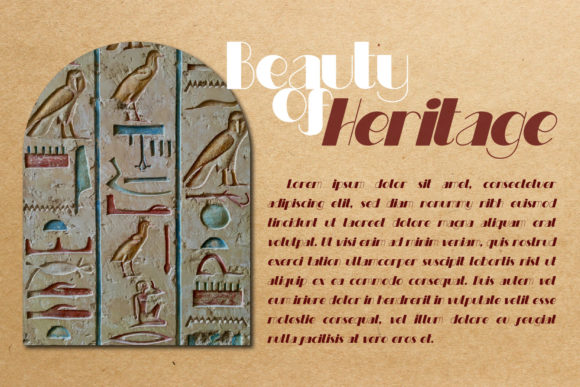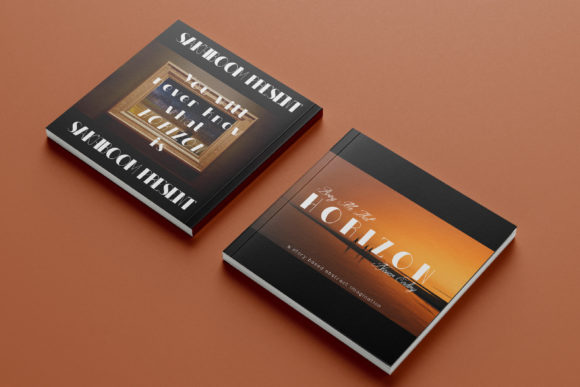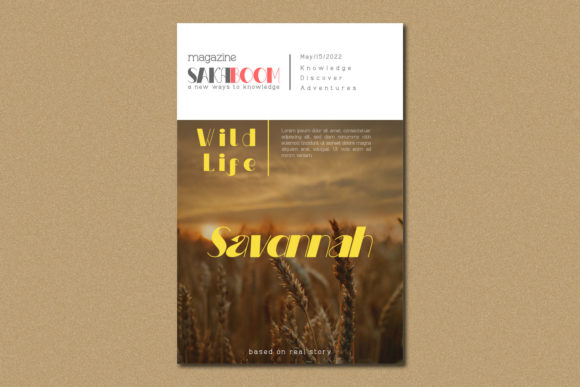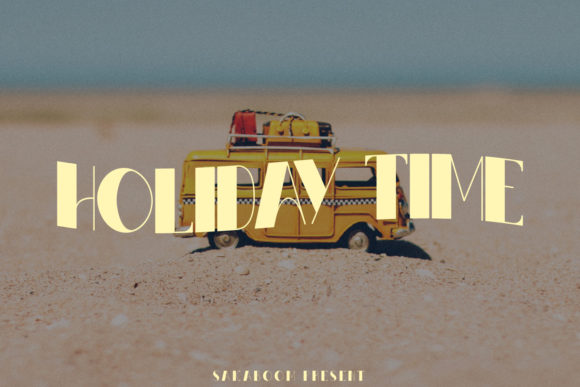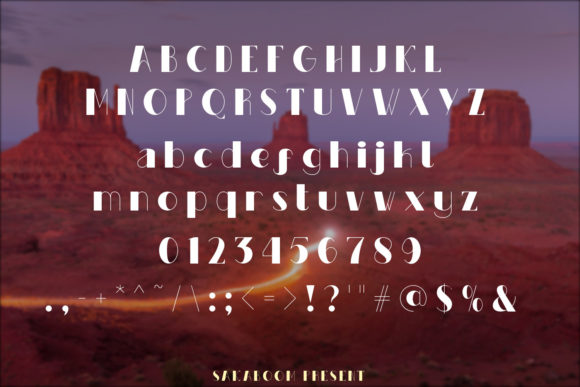
Introduction to Sakaboom Font
Sakaboom is a high contrast display font with strong and clean shapes.
You can use it for various projects, such as blog posts, logos, branding, ads, invitations, greeting cards, planners, photo albums, decorations, and much more .
Key Features of Sakaboom Font
Why Choose Sakaboom Font?
Sakaboom Font offers exceptional quality and versatility, making it a valuable addition to your design toolkit. Whether you’re creating for personal projects or commercial use, Sakaboom Font delivers professional results.